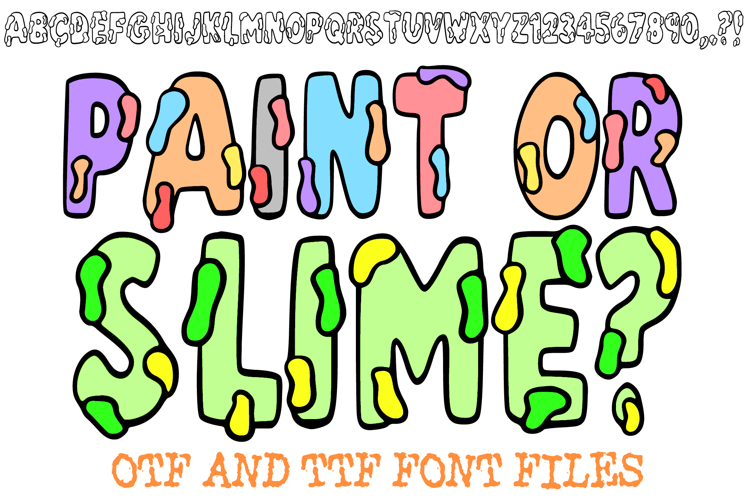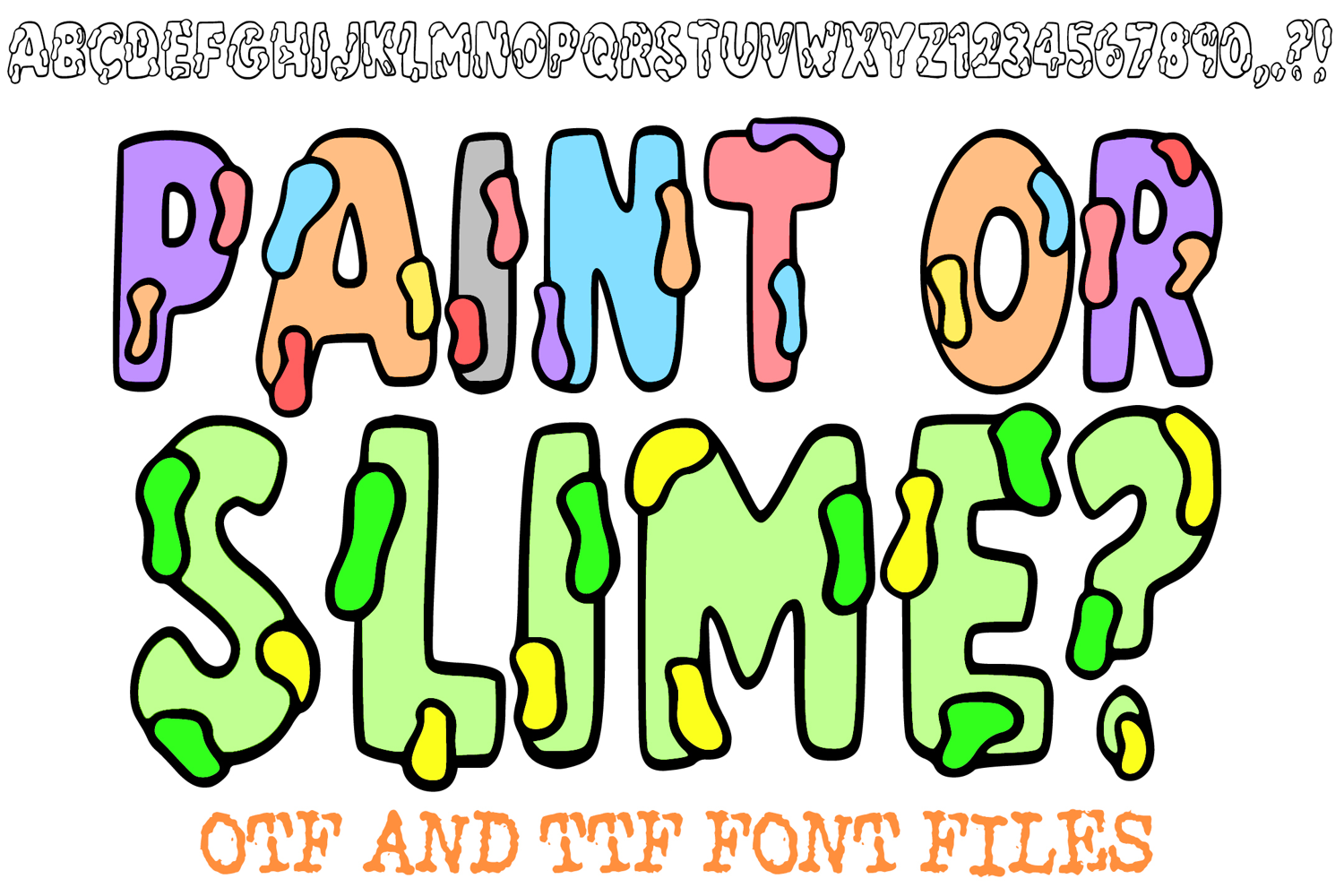
Paint or Slime Gooey Lettering ABC Font Drip Type OTF
Unleash your creativity with the Paint or Slime? Font, a playful and drippy display typeface that looks like it’s melting right off the page! This fun and bold font combines the look of dripping paint and oozing slime, making it perfect for quirky designs, Halloween crafts, messy art projects, kids’ party invitations, and more.
Each letter is filled with gooey, organic shapes that bring your words to life — whether you’re designing spooky graphics, colorful posters, or playful merch. With both OTF and TTF font files included, the Paint or Slime? Font is ready to use in Cricut, Silhouette, Canva, Procreate, Photoshop, and all your favorite design software.
Add a splash (or slime!) of fun to your next creative project with this unique, hand-drawn drippy font — perfect for makers, designers, and DIY crafters alike!